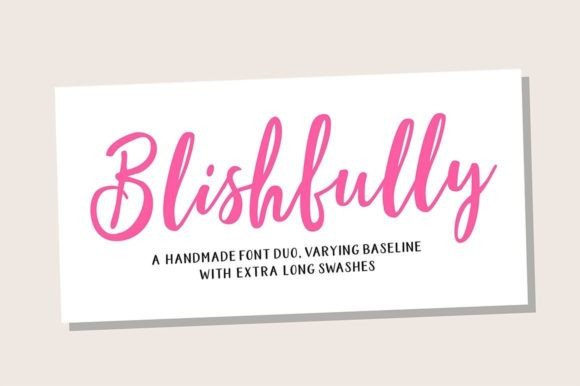
The Blishfully Font: A Sweet Duo for Creative Designs
Have you ever been in the middle of a design project, and suddenly, you’re stuck on finding the perfect font? I recall a recent experience where I was working on a wedding stationery set, and my client requested a font that was both elegant and playful. After hours of searching, I stumbled upon the Blishfully font, which turned out to be a game-changer. In this article, I’ll share my experience with this beautiful duo font and provide a comprehensive guide on how to make the most of its features.
A First Impression: What Makes Blishfully Special
Blishfully is a unique duo font that combines a handwritten script with a sans serif font, offering a casual and dynamic feel to your designs. The handwritten font features a dancing baseline, which adds a touch of elegance and sophistication. The sans serif font, on the other hand, provides a clean and modern contrast. This font duo is perfect for designers, crafters, and creative hobbyists looking to add an authentic touch to their work.
Here’s my honest review of the Blishfully font:
- ✨ The unique combination of handwritten and sans serif fonts offers endless design possibilities.
- ✅ The dancing baseline in the handwritten font adds a touch of elegance.
- ✅ The font is PUA encoded, making it easy to access glyphs and swashes.
- ✅ Perfect for a variety of design projects, including branding, logos, greeting cards, wedding stationery, and quotes.
While the Blishfully font is exceptional, there are a few minor limitations to consider:
- ⚠️ The font may not be suitable for very formal or traditional designs, as it has a relatively casual feel.
- 🤔 Some users may find the font a bit too playful for certain projects, such as corporate branding.
The Story Behind Blishfully
The Blishfully font was designed with the intention of creating a unique and versatile font duo that could be used for a variety of design projects. The designer aimed to create a font that was both elegant and playful, with a touch of whimsy. The result is a font that’s perfect for designers, crafters, and creative hobbyists looking to add a personal touch to their work.
| What is the Blishfully font best suited for? | The Blishfully font is perfect for designs that require a touch of elegance and playfulness, such as branding, logos, greeting cards, wedding stationery, and quotes. |
| Is the Blishfully font easy to use? | Yes, the Blishfully font is easy to use, even for beginners. The font is PUA encoded, making it easy to access glyphs and swashes. |